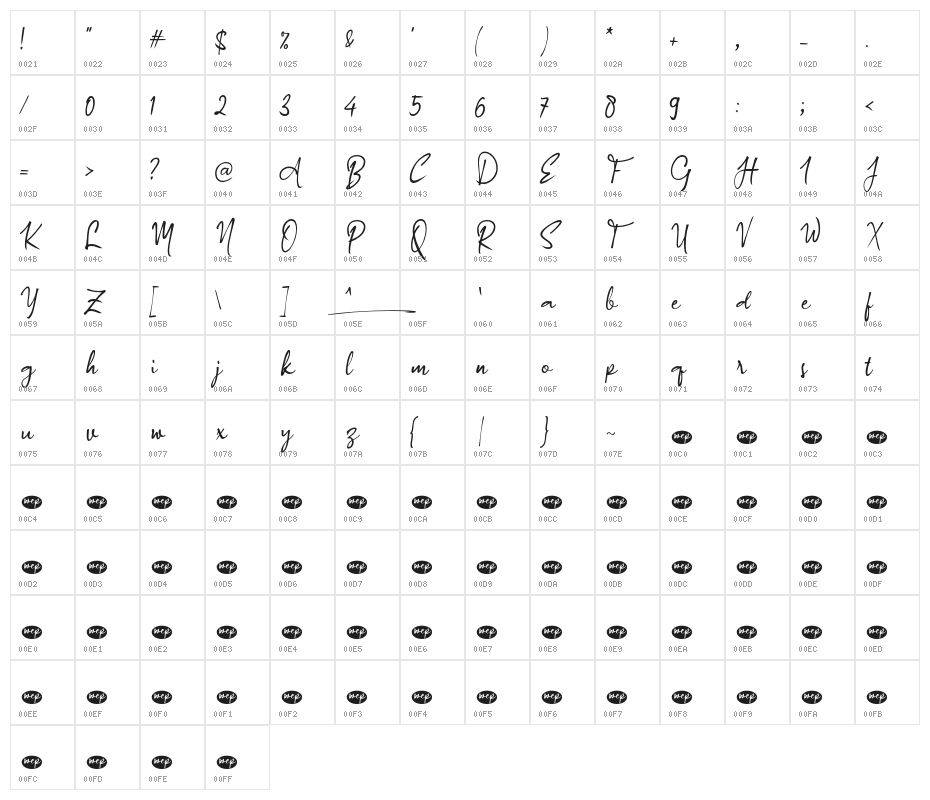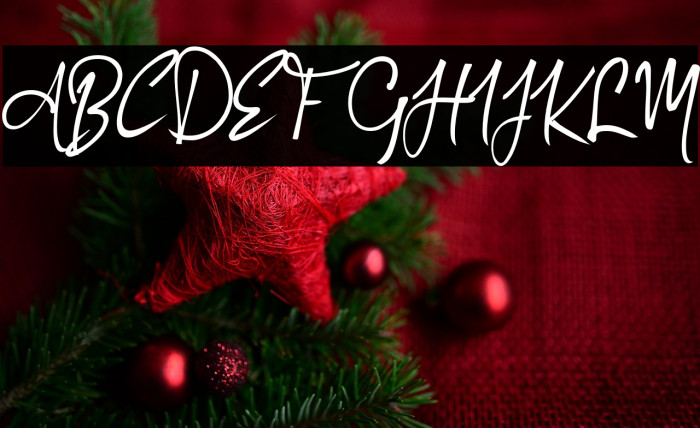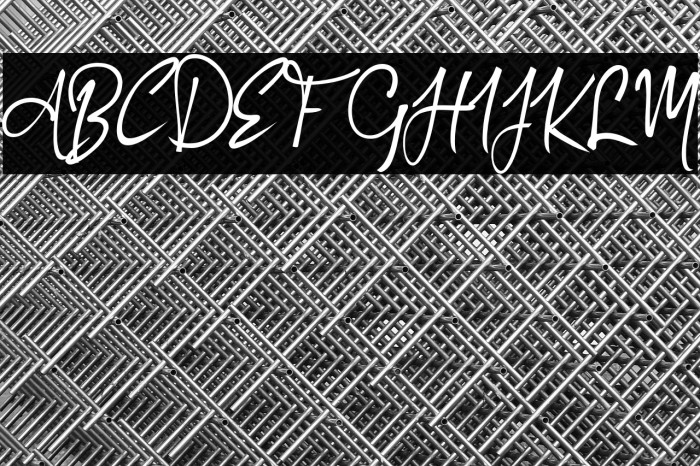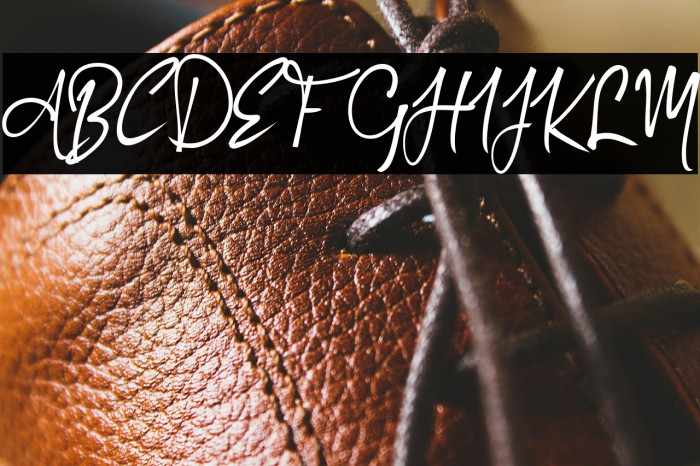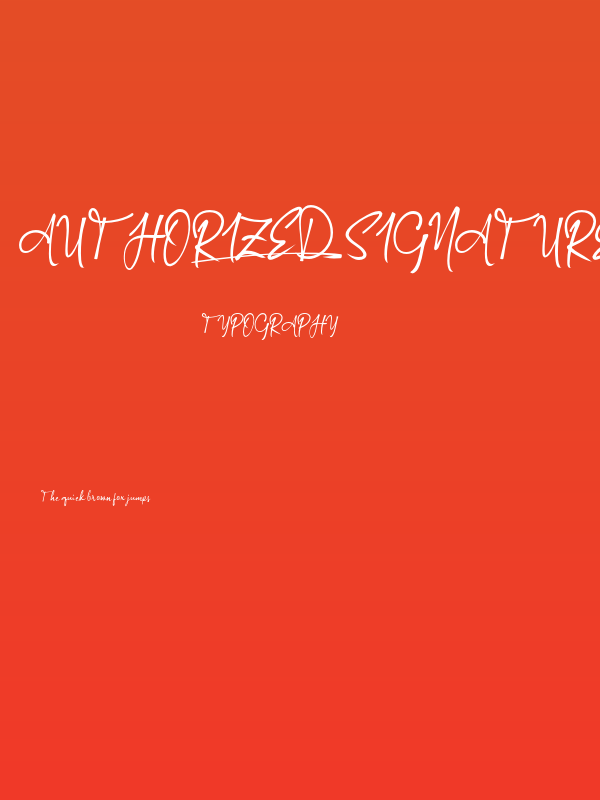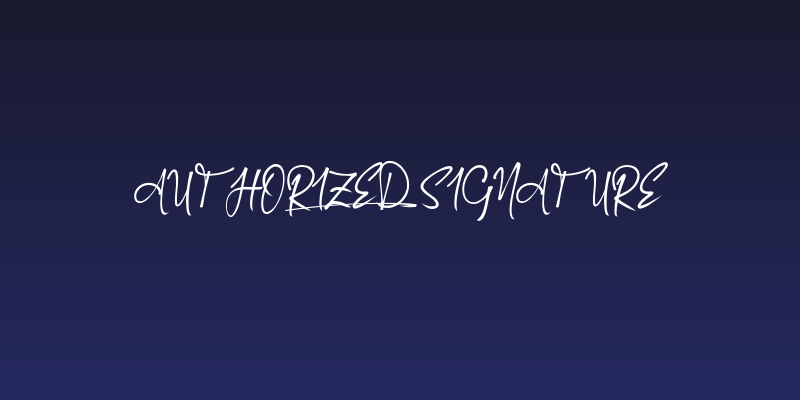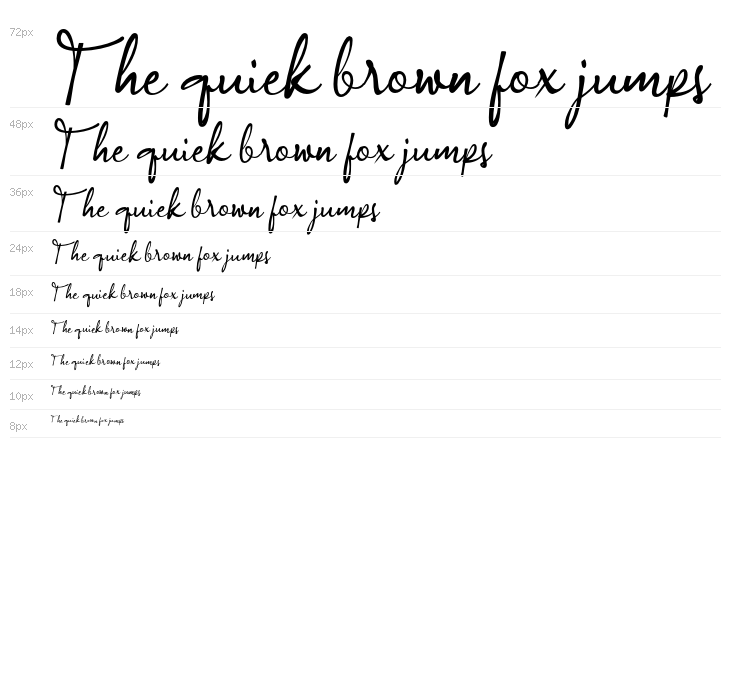
Authorized_Signature Font
Authorized_Signature Description
This font exudes a handwritten, cursive style that mimics the fluidity and elegance of a personal signature. The uppercase letters are bold and sweeping, with a slight slant that adds to the dynamic movement of the text. The lowercase letters maintain a consistent flow, connecting smoothly in a way that enhances readability while preserving the script's artistic flair. Numbers and special characters are crafted with the same attention to detail, ensuring a cohesive look across all elements. The strokes vary in thickness, providing a medium contrast that adds depth and interest without compromising clarity. This font is ideal for projects that require a personal touch, such as invitations, branding, or any design that benefits from a sophisticated yet approachable aesthetic.
Overall StyleElegant, Handwritten
Use CaseLogos, Invitations, Personal Branding
Proposed ProjectsIdeal for invitations, personal branding, greeting cards, and elegant signage.